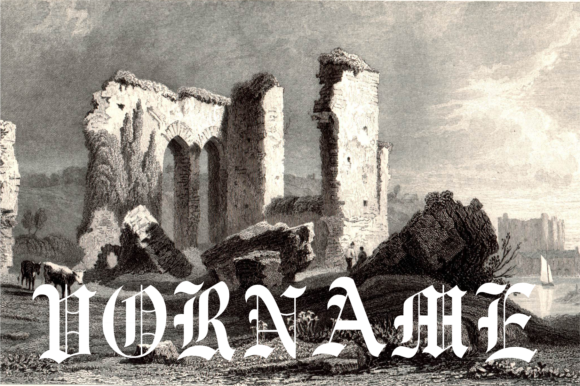
Vorname Font
Immerse yourself in the enigmatic and captivating world of Vorname, a blackletter font that will unleash your medieval fantasies. Handcrafted by the masters at Intellecta Design, this font exudes a timeless charm that will elevate your designs to new heights.
Vorname's intricate strokes and dramatic ligatures evoke the elegance and grandeur of ancient manuscripts. Each letter is a work of art, adorned with flourishes that dance across the page. Its sharp angles and bold curves lend a touch of intrigue and mystery to your creations.
Whether you're crafting medieval-themed logos, enchanting invitations, or captivating social media posts, Vorname is the perfect font to transport your audience to a world of knights, dragons, and forgotten realms. Its versatility knows no bounds, from elegant wedding invitations to edgy posters that command attention.
Indulge in the allure of Vorname and let your imagination soar. It's not just a font; it's a gateway to a timeless world where your designs will captivate and enchant. Embrace the power of the past and make your mark with the captivating Vorname font.